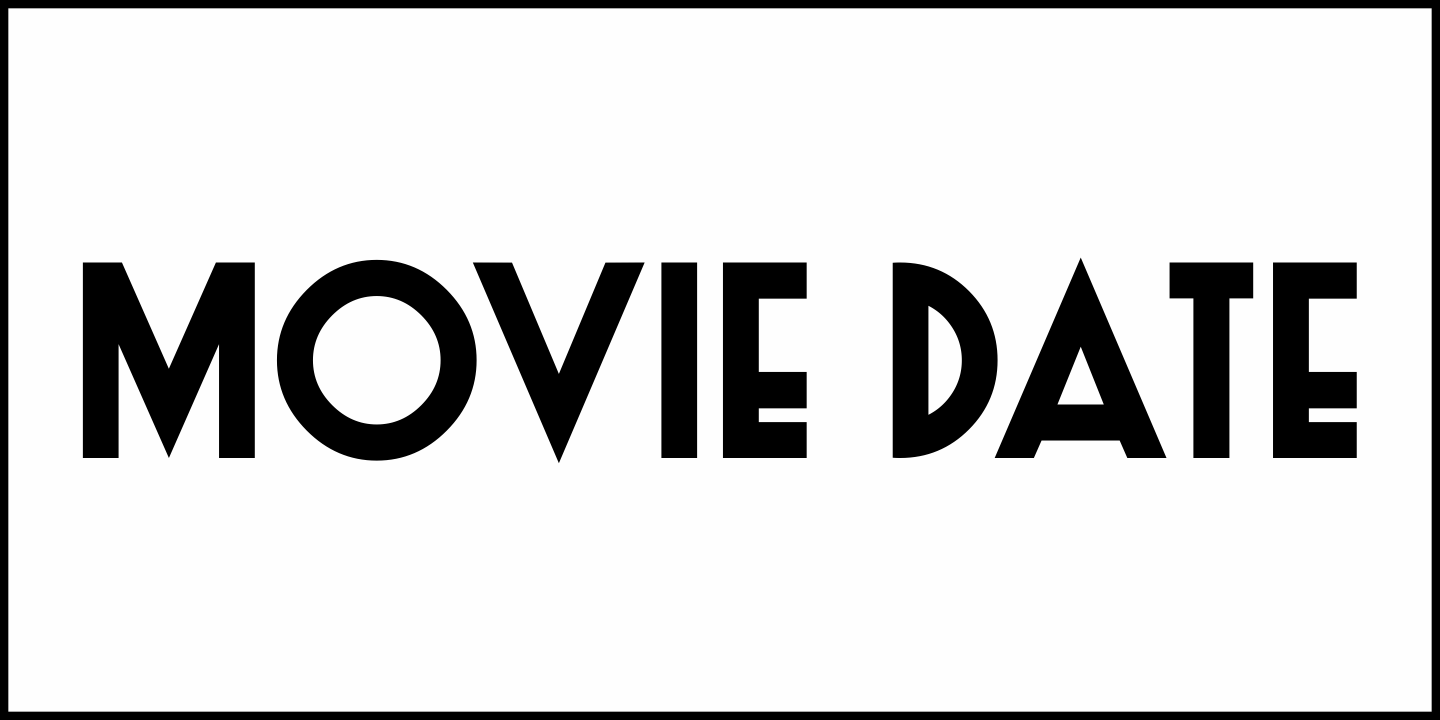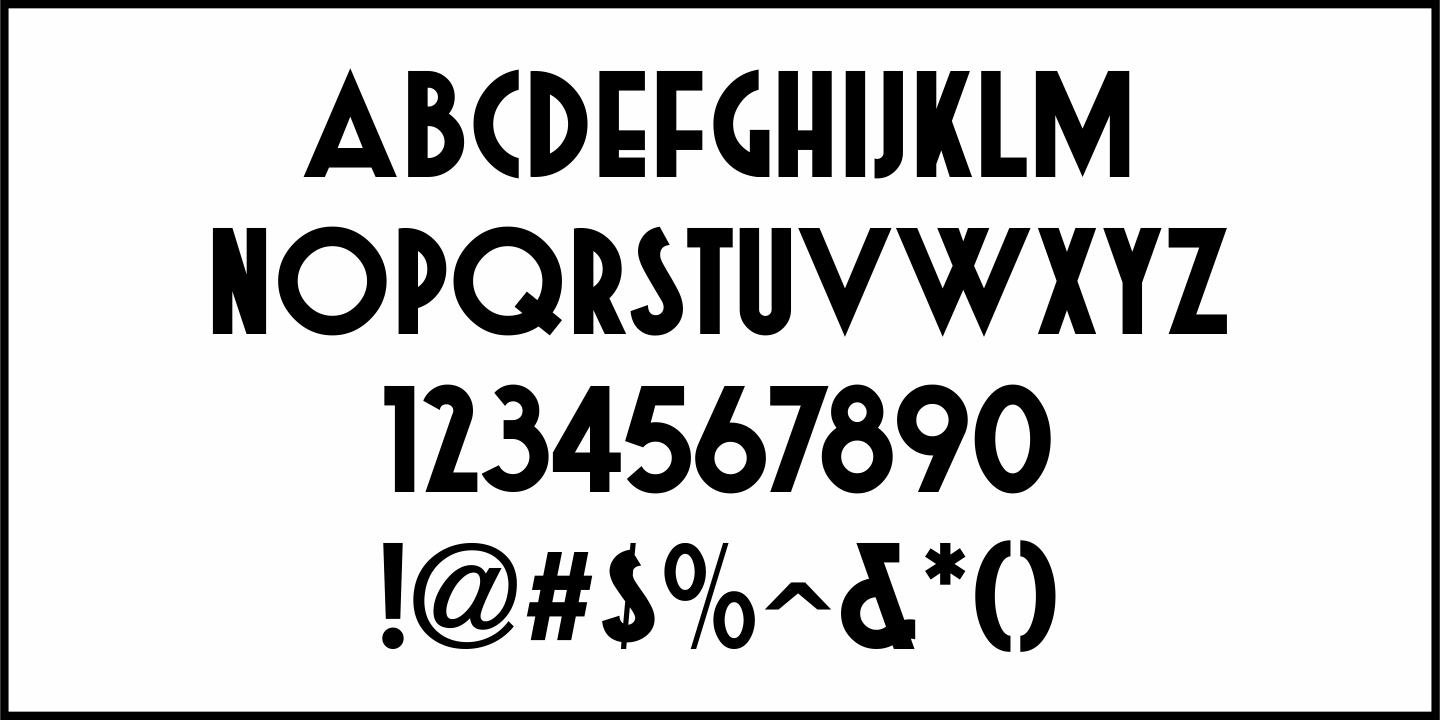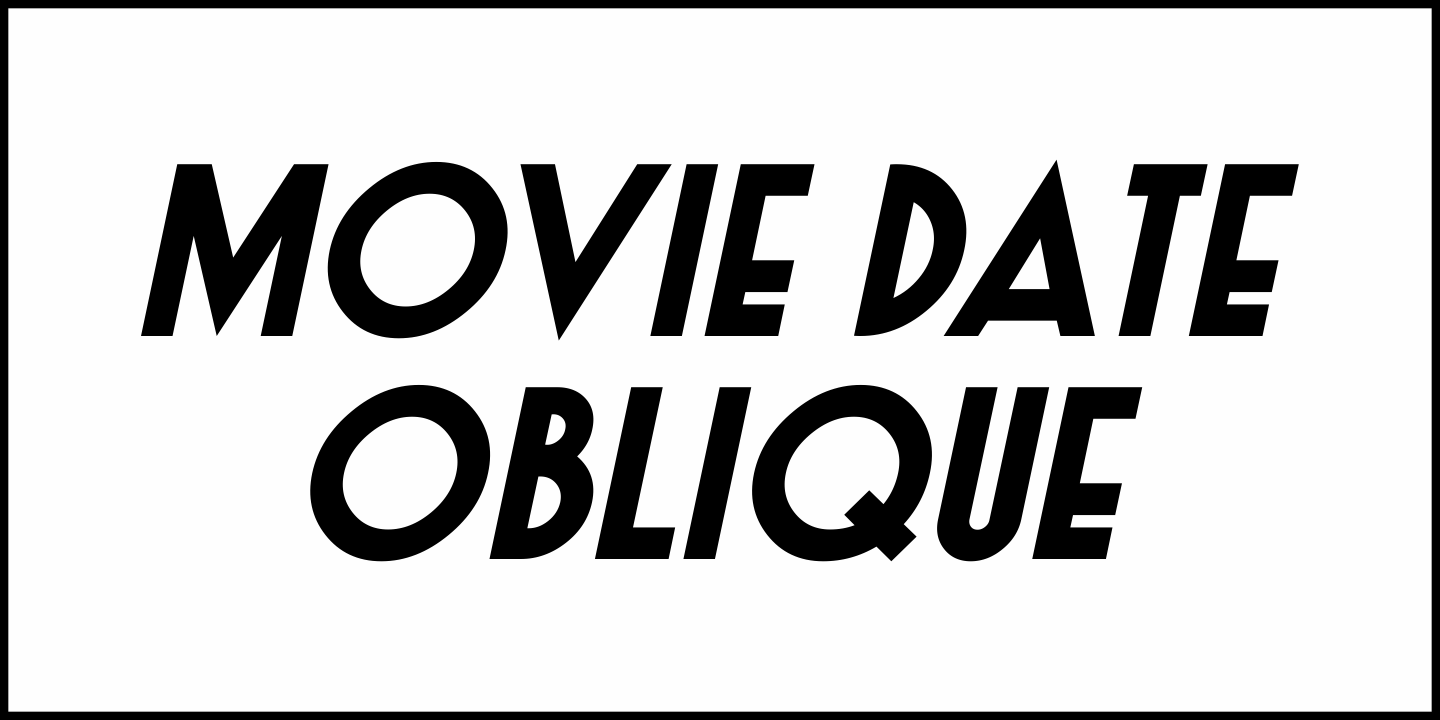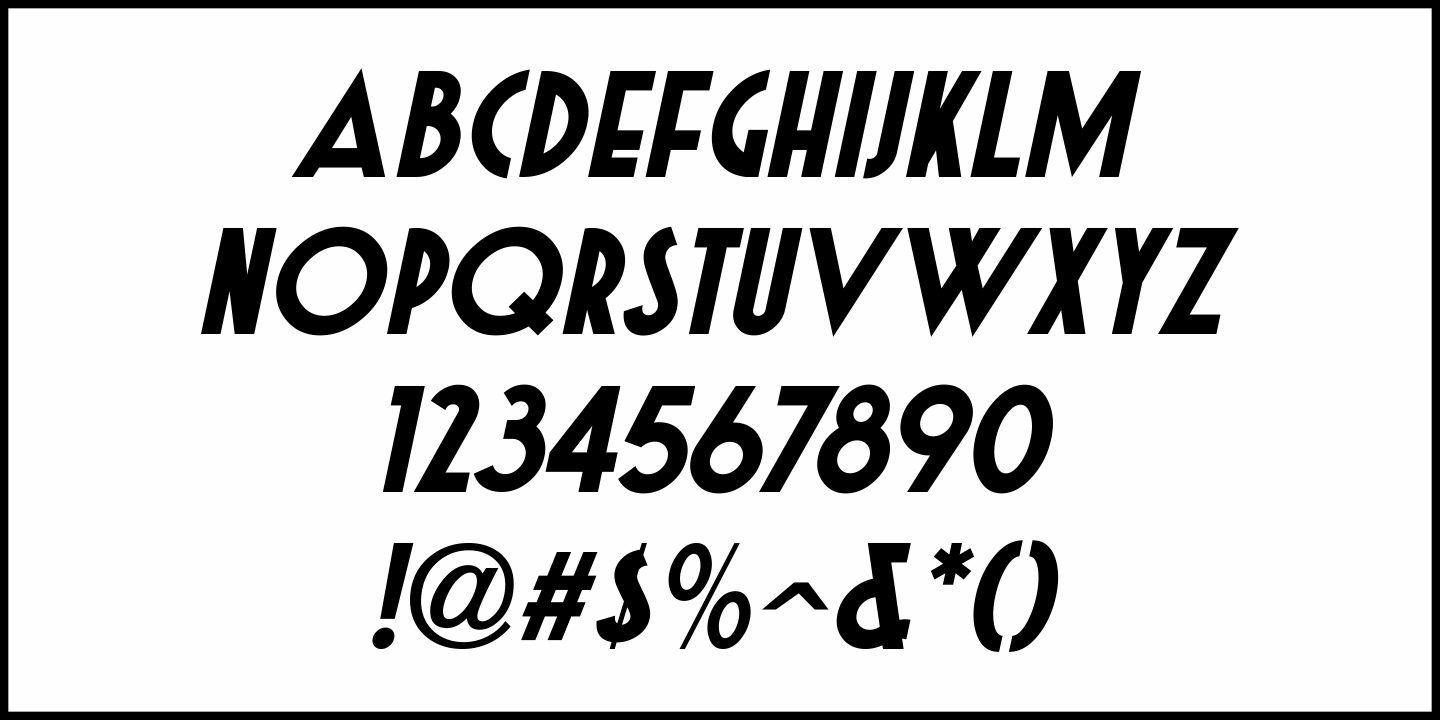
Movie Date
The May 7, 1937 issue of the French movie magazine "La Cinématographie Française" contained an ad for a movie comedy entitled "Le Club des Aristocrats" ("The Club of Aristrocrats").
The film's title was hand lettered in a bold Art Deco sans serif design, and is now available as Movie Date JNL in both regular and oblique versions.